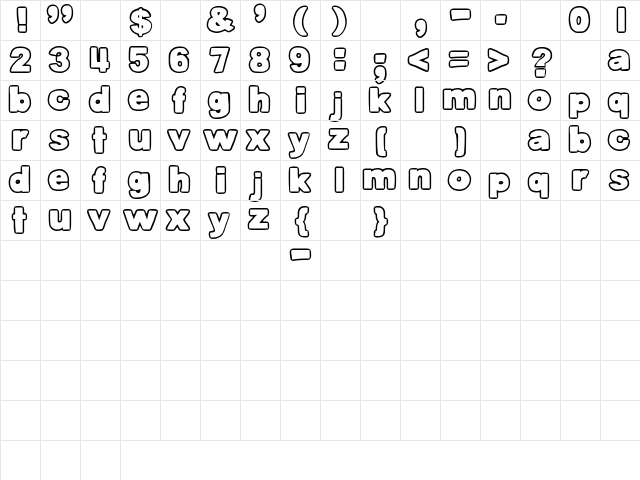
Complete DJB Belly Button-Outtie Regular glyph index. Displaying only characters natively supported by DJB Belly Button-Outtie Regular font.
DJB Belly Button-Outtie is a composed and adaptable typeface that performs quietly and consistently across a wide range of design contexts.